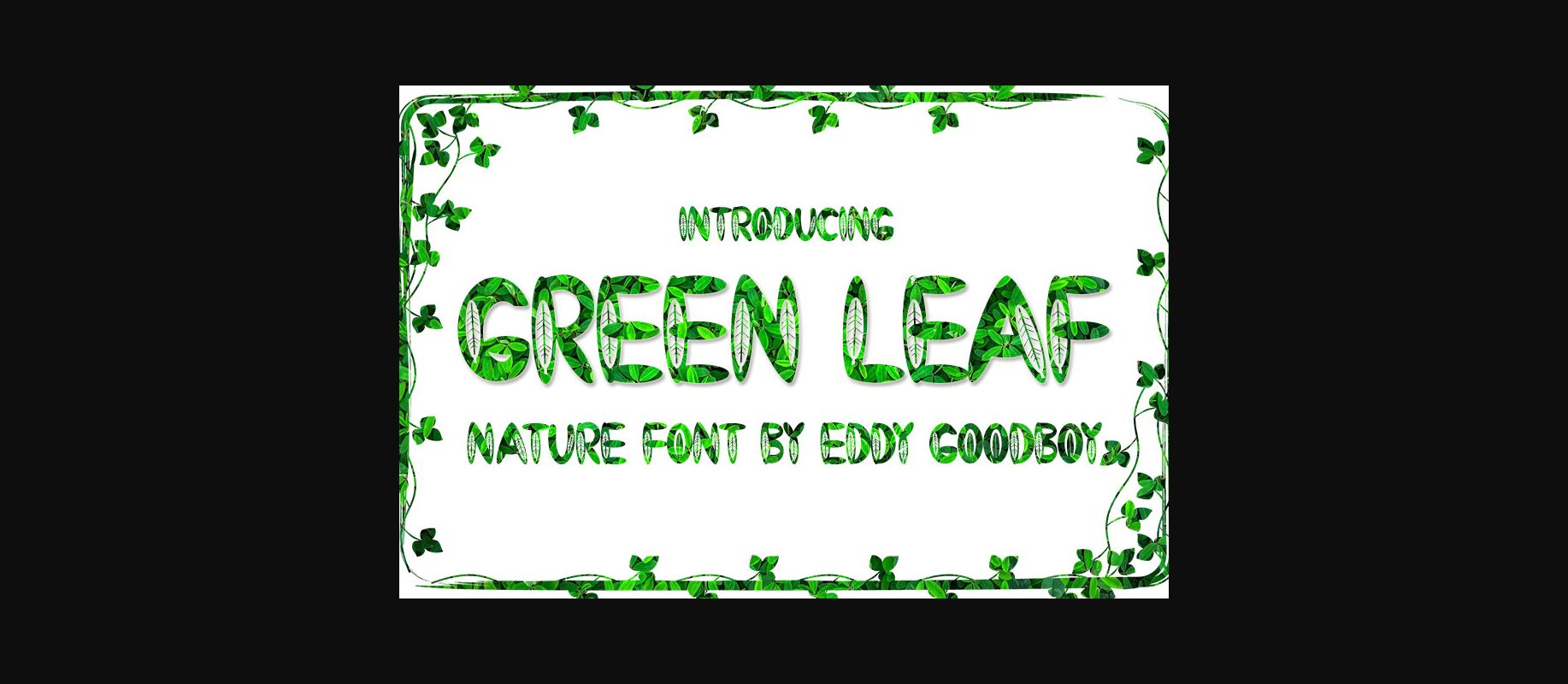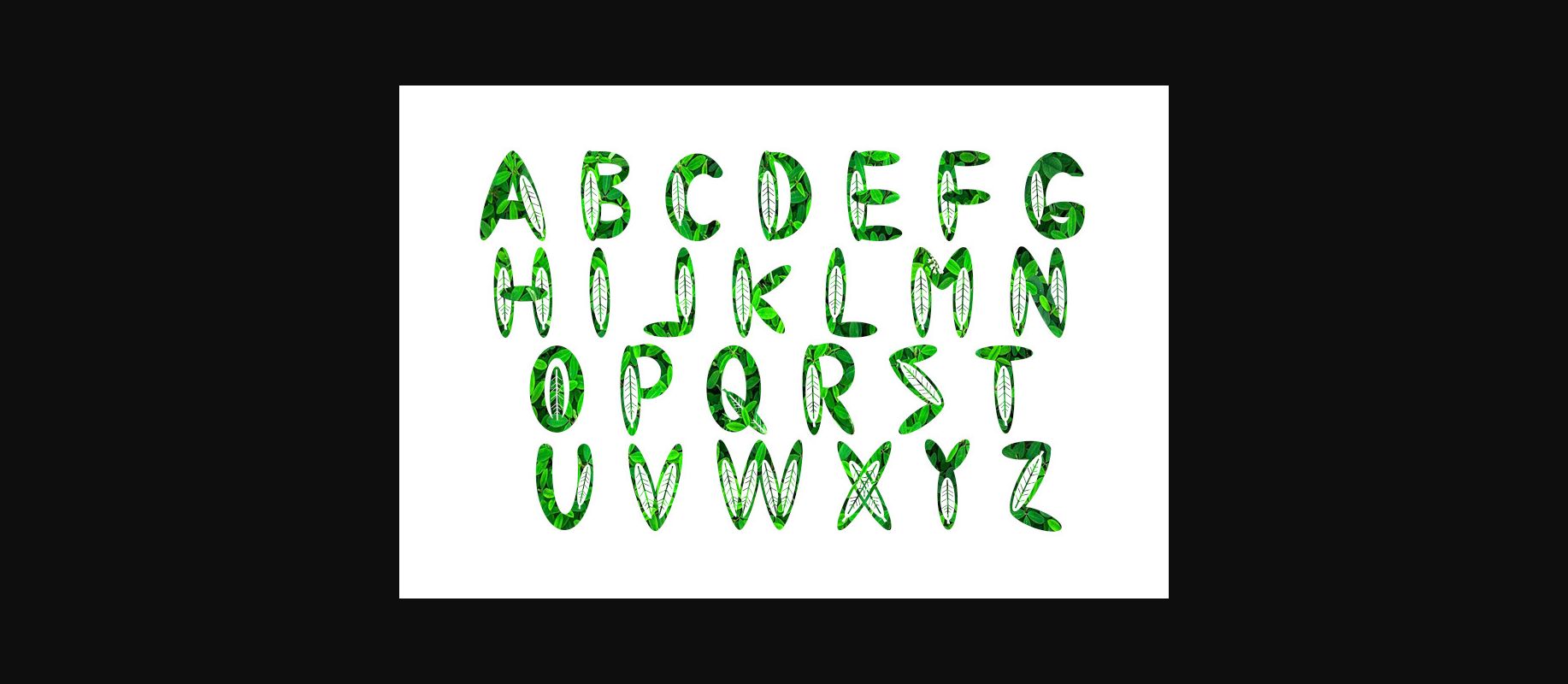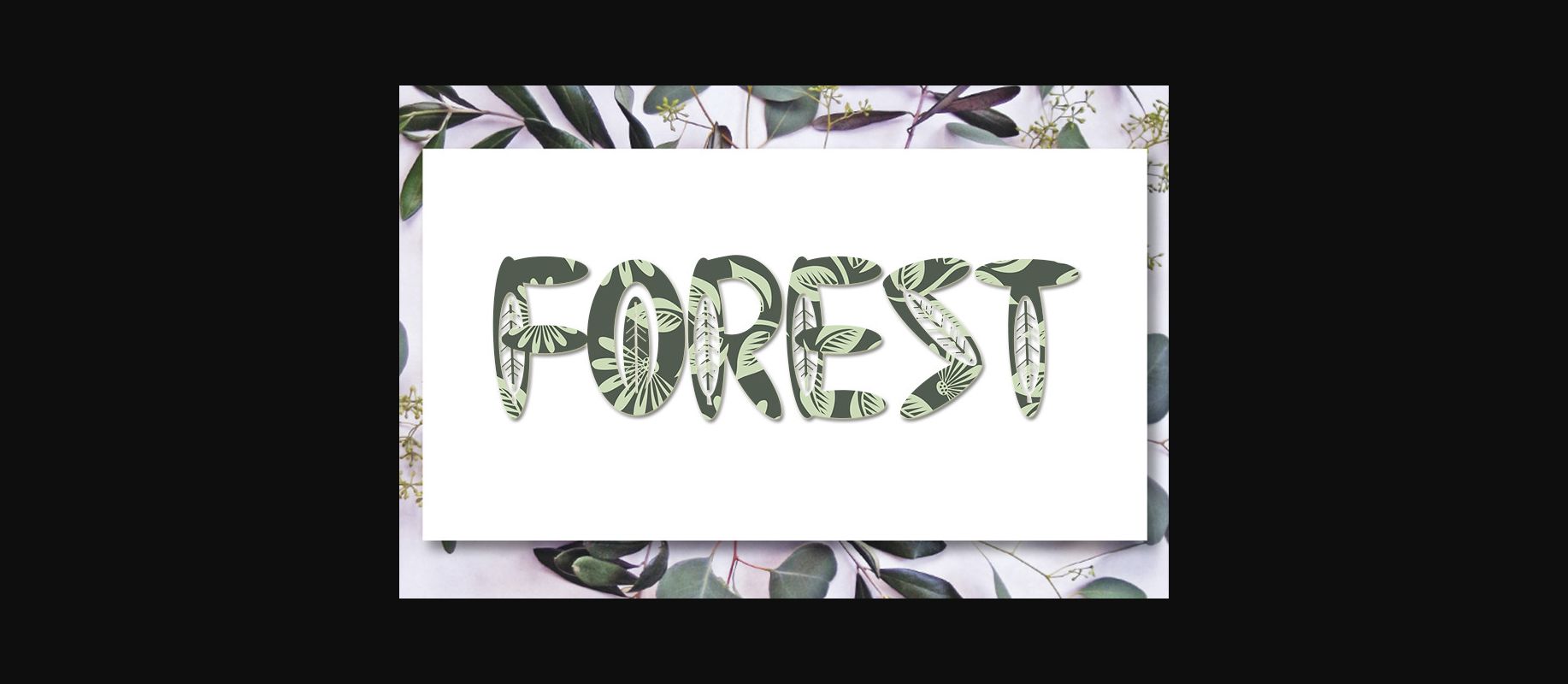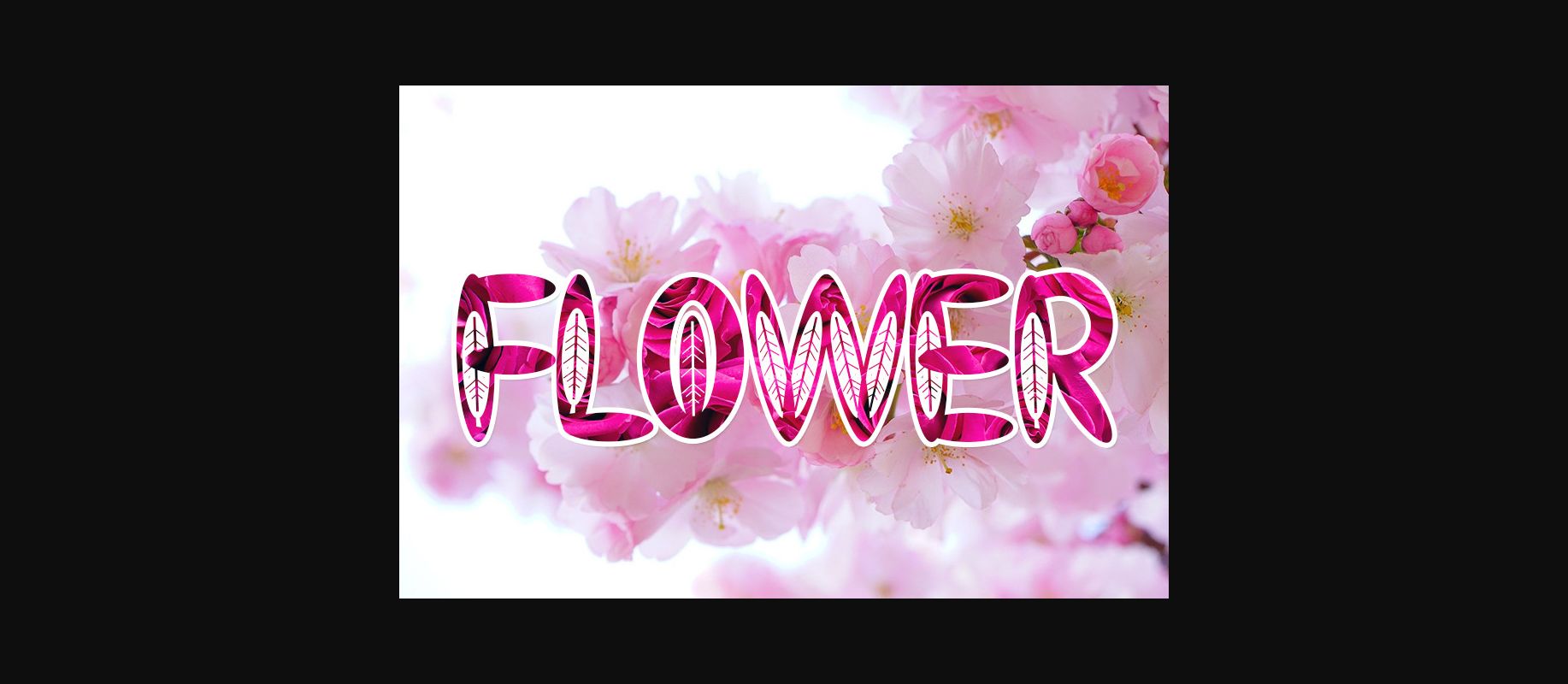
About Green Leaf Font
Green Leaf is an incredibly cool and authentic decorative font. Add it to your bio, fresh designs, and they will instantly come to life.